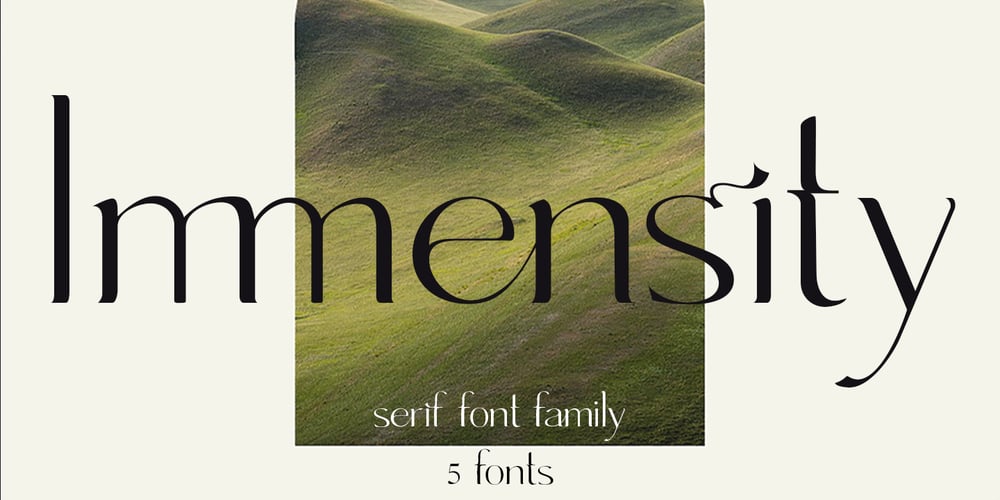
Immensity
Immensity font
Immensity Font Family was designed by Polina Chistyakova and published by Innire. Immensity contains 5 styles and family package options. Immensity is a stylish font family with graceful ligature features and stylistic alternatives (for example, the letters i and j). Smooth and elegant lines combined with high contrast in bold lettering. All this, together with support for diacritical symbols and five different weight, makes it possible to use it widely in various projects